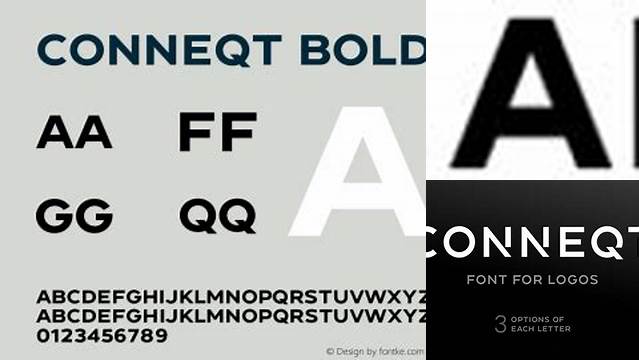
Hey guys, let's dive into the awesome world of the Conneqt Bold font family! If you're on the hunt for a typeface that screams modern, clean, and versatile, then you've hit the jackpot. This font isn't just about looking good; it's about making your designs pop and communicate with clarity. Whether you're a seasoned graphic designer or just starting out, understanding the power of a well-chosen font can seriously level up your game. Conneqt Bold is one of those fonts that just works, no matter the project. Think branding, headlines, web design, print materials – you name it, Conneqt Bold can handle it. What's even better, is that it’s often available for free download, making it a super accessible tool for anyone looking to add a touch of professional polish to their work. We'll explore why this font is a go-to for so many creatives, how to best utilize its bold weight, and where you can snag it for your next big project. Get ready to discover a font that’s both powerful and approachable.
Why Conneqt Bold is Your Next Design Essential
So, why all the fuss about Conneqt Bold, you ask? Well, guys, it’s all about its superb readability and its modern aesthetic. This font strikes a perfect balance between being impactful and easy on the eyes. The bold weight, in particular, is designed to grab attention, making it ideal for headlines, titles, and any text that needs to stand out. Imagine a sleek magazine cover, a catchy social media graphic, or a bold call-to-action button on a website – Conneqt Bold nails it. Its clean lines and geometric influences give it a contemporary feel that pairs well with a wide range of design styles. It’s not overly decorative, which means it doesn’t distract from your message. Instead, it enhances it. The consistent stroke width and well-spaced letters ensure that even at larger sizes, the font remains legible and doesn’t feel heavy or overwhelming. This is crucial for creating professional-looking materials that resonate with your audience. Moreover, the versatility of the Conneqt Bold font family is a massive plus. Often, you'll find it comes with a range of weights, from light to black, allowing for a cohesive typographic system within your projects. This means you can use different weights of the same family for body text, subheadings, and main titles, ensuring a harmonious look throughout your design. The bold weight is the star of the show for impact, but having the supporting weights means you don't need to mix and match fonts as much, simplifying your design process and maintaining visual consistency. When it comes to free font downloads, quality can sometimes be a gamble, but Conneqt Bold consistently delivers on quality and style. It’s a testament to good font design that it can be offered freely while maintaining such a high standard. Think of it as a secret weapon in your design arsenal – a readily available, high-impact typeface that elevates everything it touches. The sheer impact of the bold weight is undeniable, making it a favorite for designers who need their typography to make a statement without saying too much. It’s robust, it’s confident, and it’s incredibly stylish, all wrapped up in a free package. This makes it an invaluable asset for students, freelancers, and small businesses who might not have the budget for premium font licenses but still demand top-tier typography.
Mastering the Conneqt Bold Font for Maximum Impact
Now that we know why Conneqt Bold is so great, let's talk about how to really make it shine, guys! The key to using any bold font effectively, including Conneqt Bold, is to understand its purpose in your design. It’s not just about making text bigger; it’s about creating hierarchy, emphasis, and visual interest. For headlines and titles, Conneqt Bold is an absolute winner. Use it generously to capture attention right from the start. Pair it with a lighter weight from the same family, or a complementary sans-serif font, for body copy to create a clear visual distinction and guide the reader's eye. Think about the context, too. On a website, a large Conneqt Bold headline can anchor a page, drawing users in immediately. In print, it can make a poster or brochure cover unforgettable. When using it for calls to action (CTAs), like “Shop Now” or “Learn More” buttons, its boldness ensures that these crucial elements are unmissable. This can directly impact conversion rates, so it’s a smart choice for marketing materials. However, a word of caution: while Conneqt Bold is fantastic for impact, overusing it can make your design feel cluttered or aggressive. It's a powerful tool, and like any powerful tool, it needs to be wielded with care. Reserve its use for the most important pieces of information or the main focus of your design. Consider the overall mood you want to convey. Conneqt Bold has a modern, confident, and somewhat assertive vibe. It’s perfect for brands that want to project strength, innovation, or a no-nonsense approach. If you’re aiming for a softer, more delicate feel, you might opt for a lighter weight or a different font altogether. But for designs that need a strong, memorable presence, Conneqt Bold is your guy. Experiment with letter spacing (kerning) and line spacing (leading) as well. Sometimes, slightly adjusting these can further refine the look and readability of your bold text. For instance, slightly wider tracking can sometimes improve legibility in very large headlines, while tighter leading can create a more compact, impactful block of text. Remember, the goal is to make your message clear and visually appealing. Conneqt Bold provides the boldness; your thoughtful application of design principles will provide the finesse. Don't be afraid to play around with it! Mock up different scenarios, see how it looks on various backgrounds, and get a feel for its versatility. The more you experiment, the more you'll discover its full potential and how it can best serve your creative vision. Its strength lies in its simplicity and directness, making it a font that’s easy to work with but hard to forget once you see it in action. It's the kind of font that makes you feel like you've got a professional edge, even if you're just starting out.